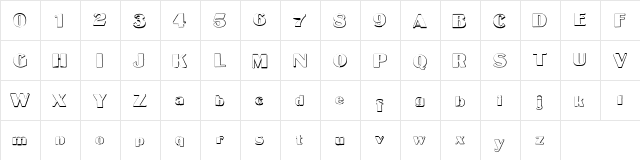
MateusBold Beveled Regular
| Foundry | Paulo W, Intellecta Design |
Design Context for MateusBold Beveled Typeface
MateusBold Beveled is a composed and adaptable typeface that performs quietly and consistently across a wide range of design contexts. Its bold stroke weight gives it real presence on the page.